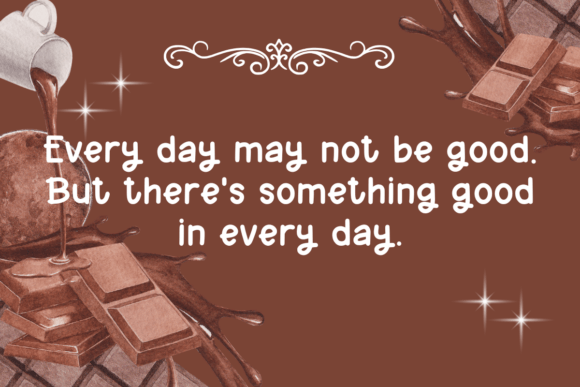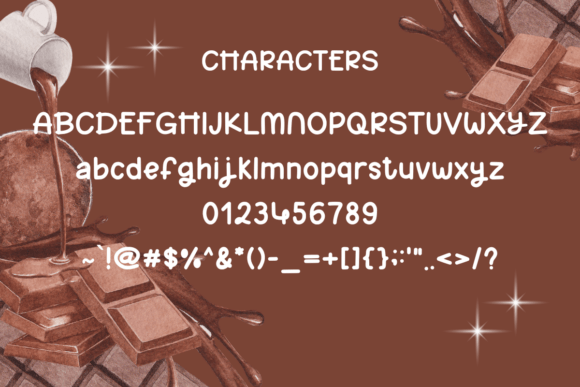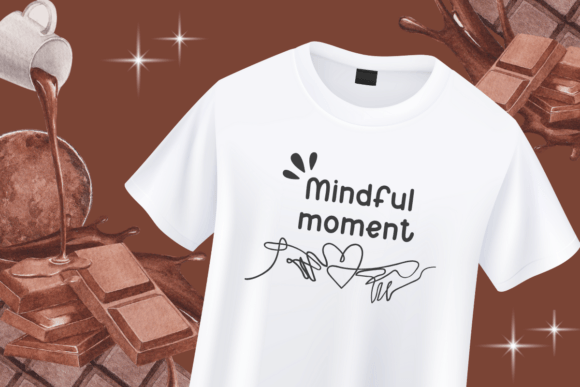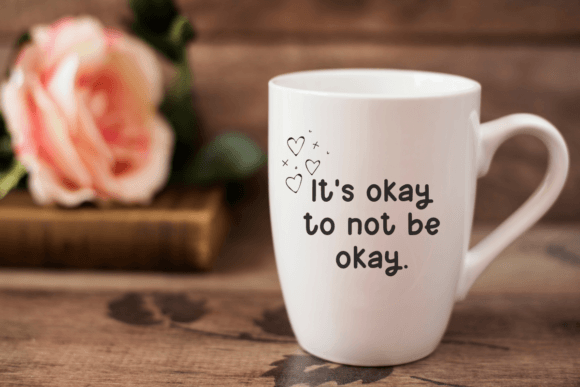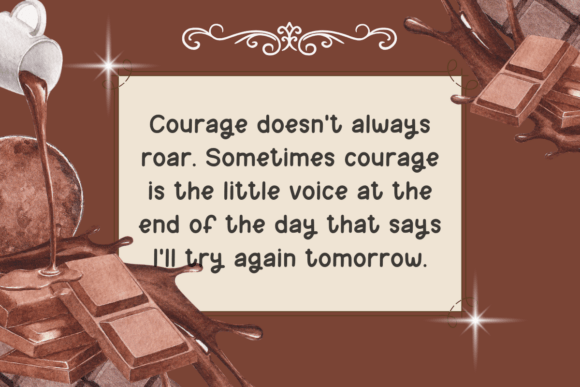
Fudgy Flourish Font: The Ultimate Choice for Creative Projects
Are you a designer or crafter looking for a fun and versatile font to elevate your creative projects? Look no further than the Fudgy Flourish Font! This exciting sans-serif font is perfect for a wide range of applications, from memos and journals to cards, invitations, and scrapbooks.
What Makes Fudgy Flourish Font So Special?
Fudgy Flourish Font is a unique and playful font that adds a touch of whimsy to any project. Its sans-serif design makes it easy to read and versatile enough to use in various contexts. Whether you’re creating a planner, interior KDP, or a simple note, this font is sure to make your work stand out.
Ideal Uses for Fudgy Flourish Font
This fantastic font is suitable for a wide range of creative projects, including:
- Memorandums and journals
- Notes and planners
- Interior KDPs (Kindle Direct Publishing)
- Cards and invitations
- Scrapbooks and photo albums
- Christmas and Halloween-themed projects
- Buddhist and Thanksgiving-themed projects
- Funky and fall-themed projects
- Laser cut designs and mini calendars
- Tumbler wraps and seamless patterns
- Basketball and zodiac-themed projects
- Mockups and t-shirts
- Quotes and tarot-themed projects
Why Designers and Crafters Love Fudgy Flourish Font
So, what makes Fudgy Flourish Font a favorite among designers and crafters? Here are just a few reasons:
- Versatility: This font can be used in a wide range of projects, from digital to print.
- Readability: The sans-serif design makes it easy to read, even at small sizes.
- Uniqueness: The playful and whimsical design sets it apart from more traditional fonts.
Tips for Using Fudgy Flourish Font
To get the most out of Fudgy Flourish Font, here are a few tips:
- Experiment with sizes: Try using the font in different sizes to create visual interest.
- Mix and match: Combine Fudgy Flourish Font with other fonts to create a unique look.
- Play with colors: Use the font in different colors to add a pop of personality to your project.